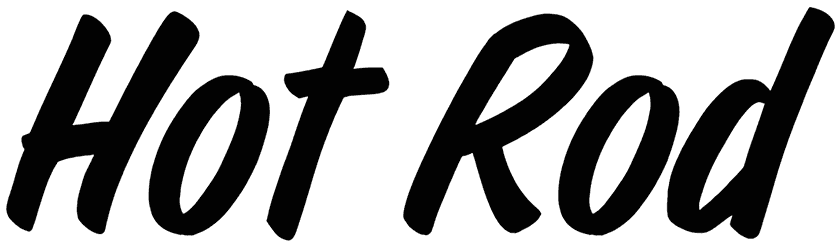
Hot Rod Font
It’s not easy to get a good font for a design, but RB is here to help you out by giving you a trendy and amazing script font to work with. With the Hot Rod font, you can make some very shocking designs.
Its elegant letters, with their graceful curves and formal design, are ideal for conveying reliability and respect. This kind of adaptability in design is perfect for things like diplomas, official papers, antiques, and wedding designs.